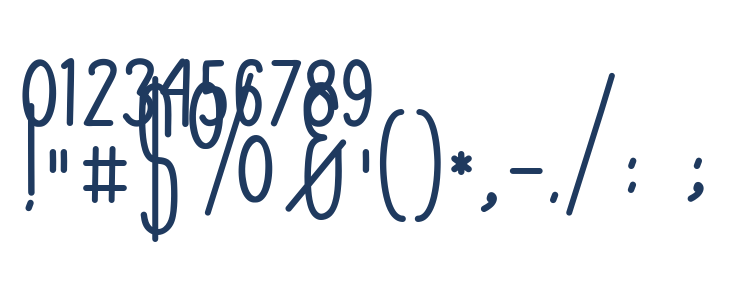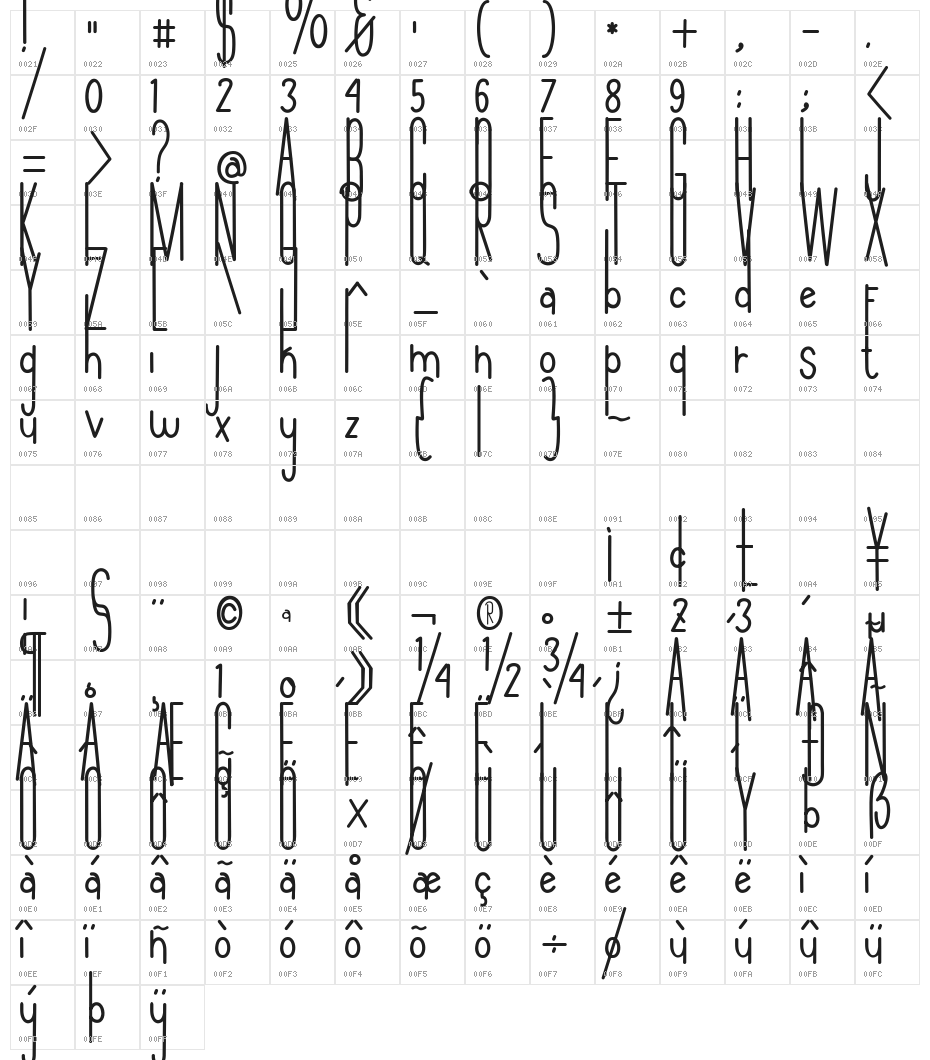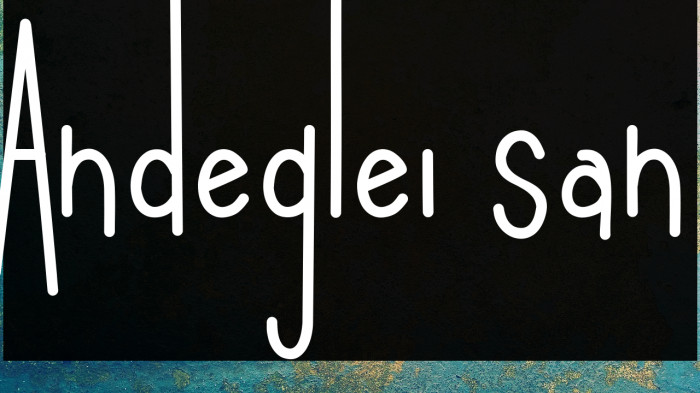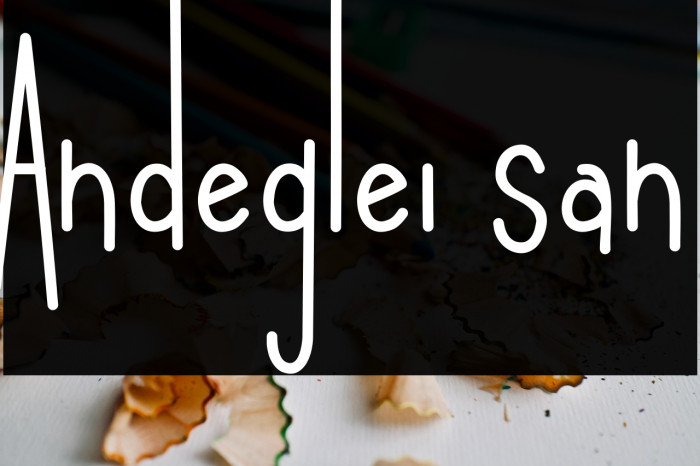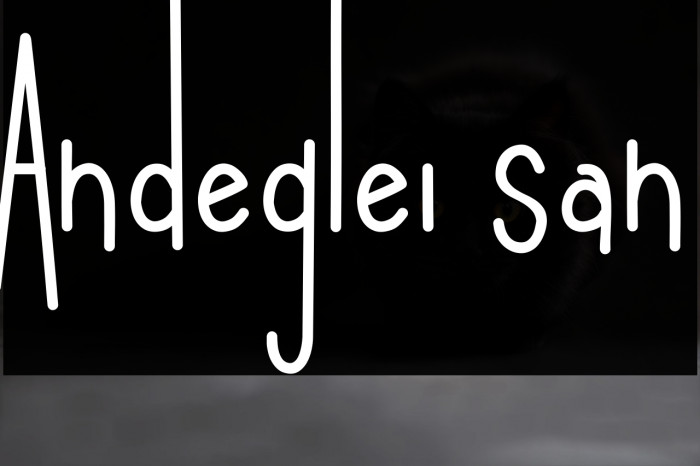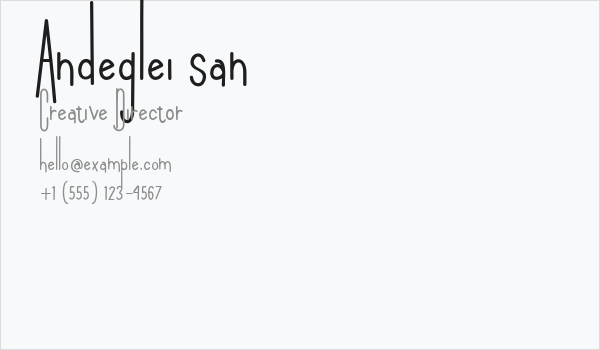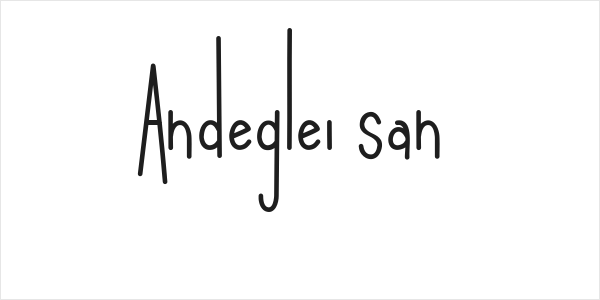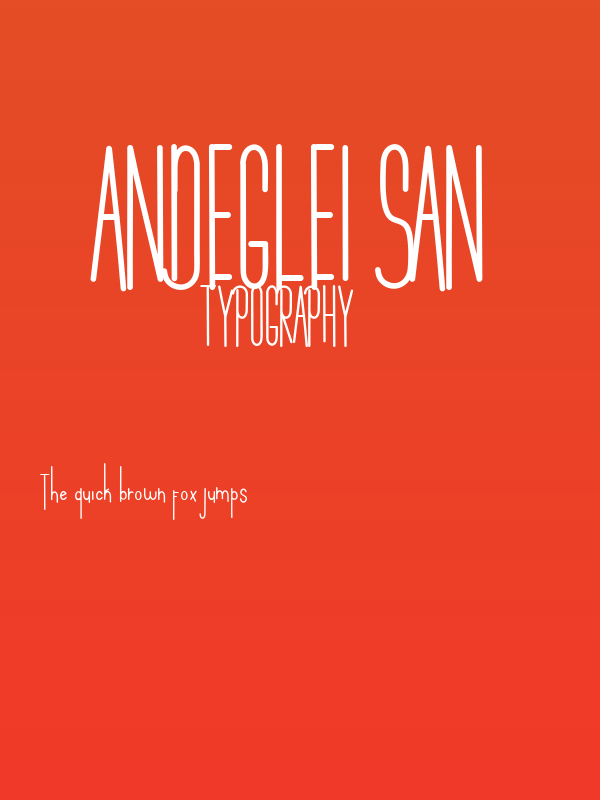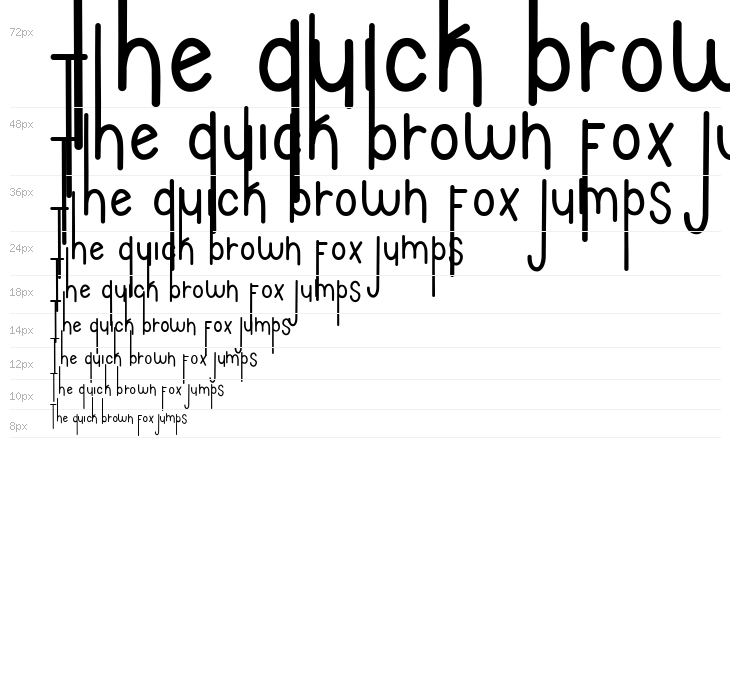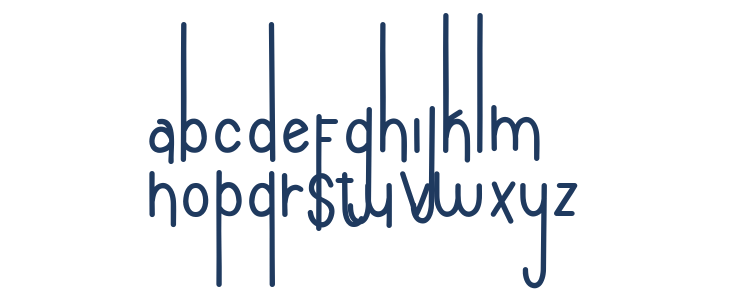
Andeglei san Font
Andeglei san Description
This font features a unique and artistic design with elongated and narrow letterforms. The uppercase letters are tall and slender, creating a striking visual impact. The lowercase letters maintain a consistent style, with some characters having distinctive loops and curves. The numbers are clear and legible, matching the overall aesthetic of the font. Special characters are creatively designed, adding to the font's artistic appeal. The font's style is modern and decorative, making it suitable for projects that require a bold and eye-catching typeface.
| Use Case | Headlines, Logos, Artistic projects |
| Proposed Projects | Ideal for posters, artistic projects, branding, and any design requiring a standout typeface. |